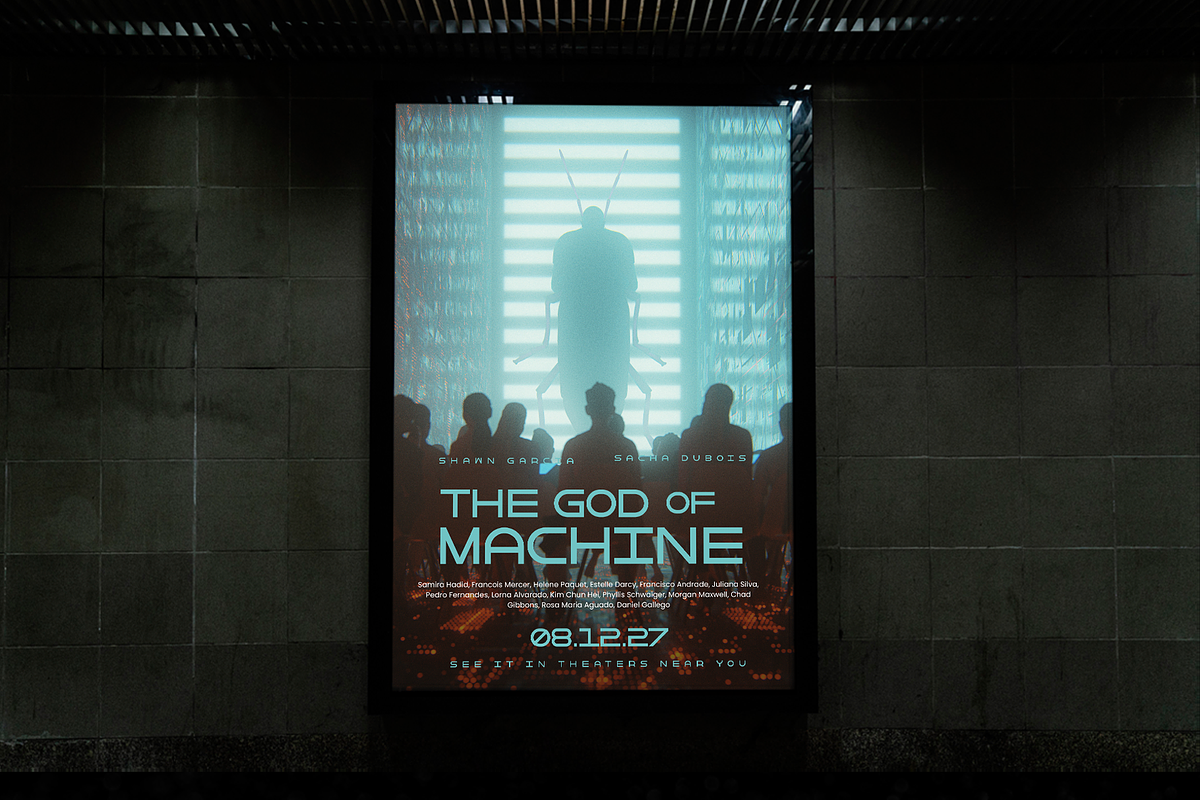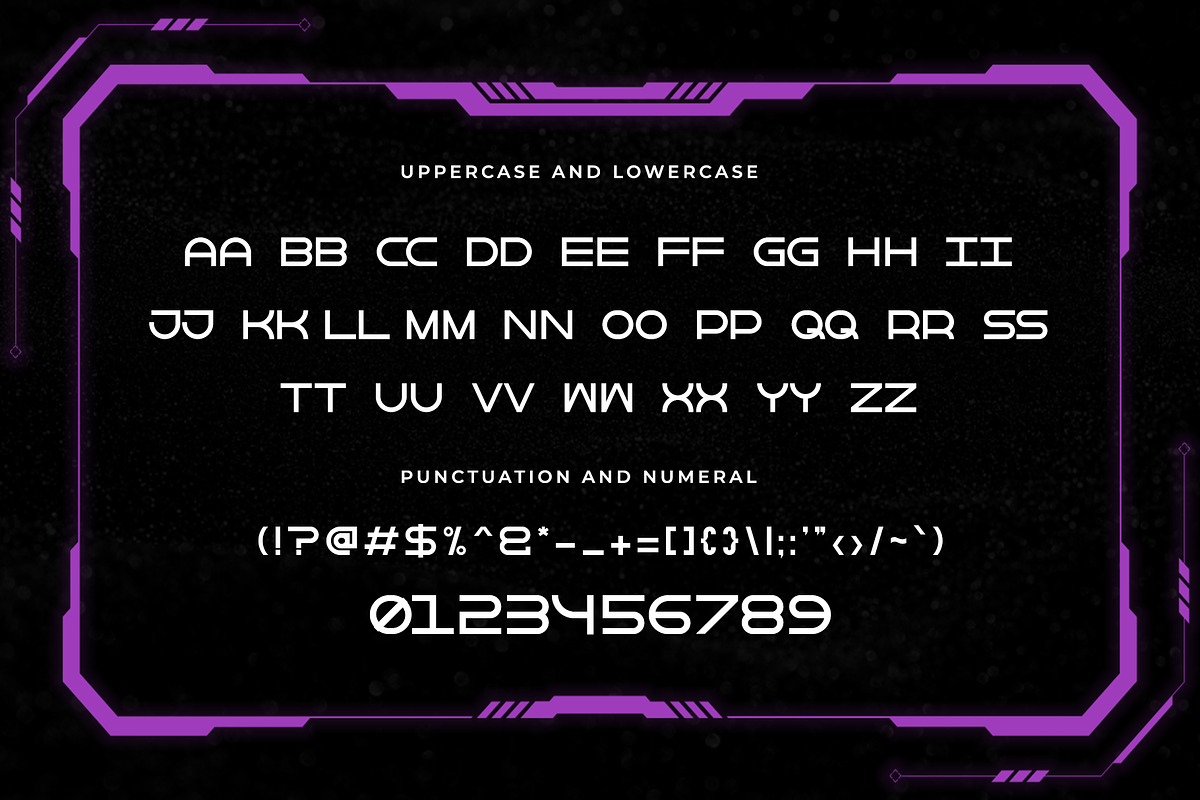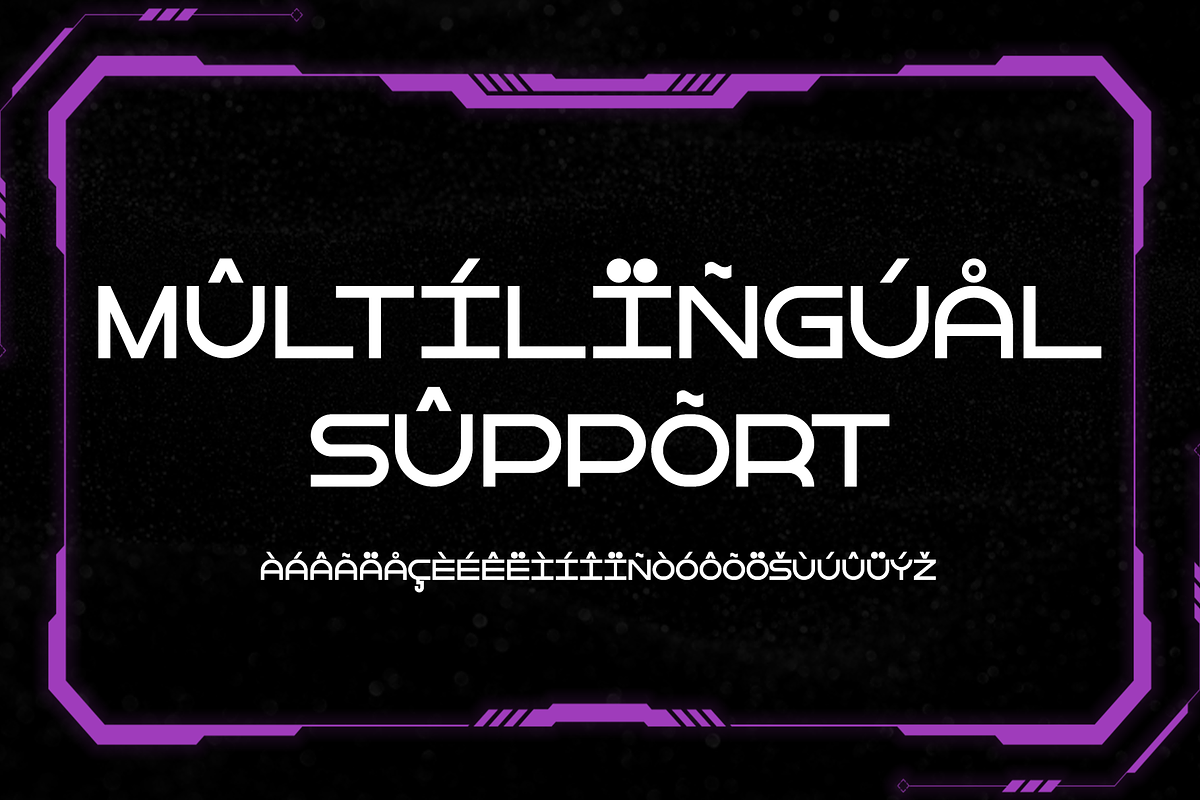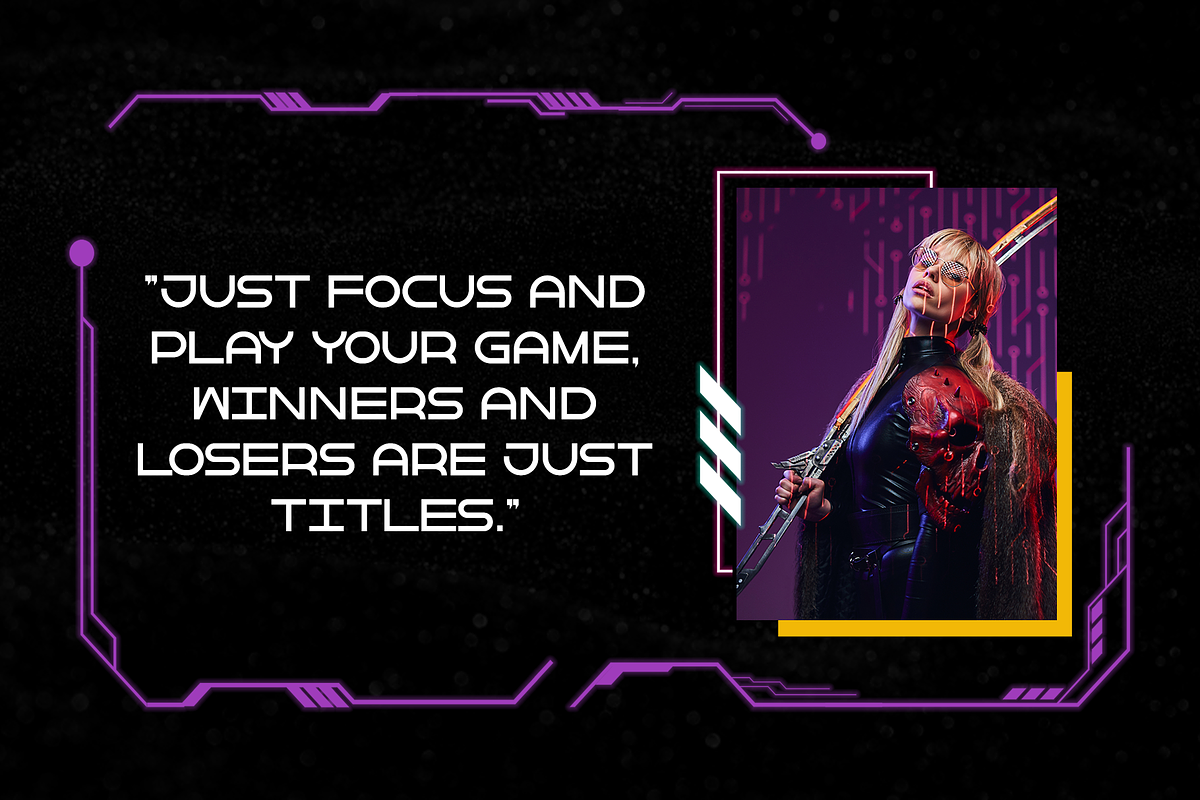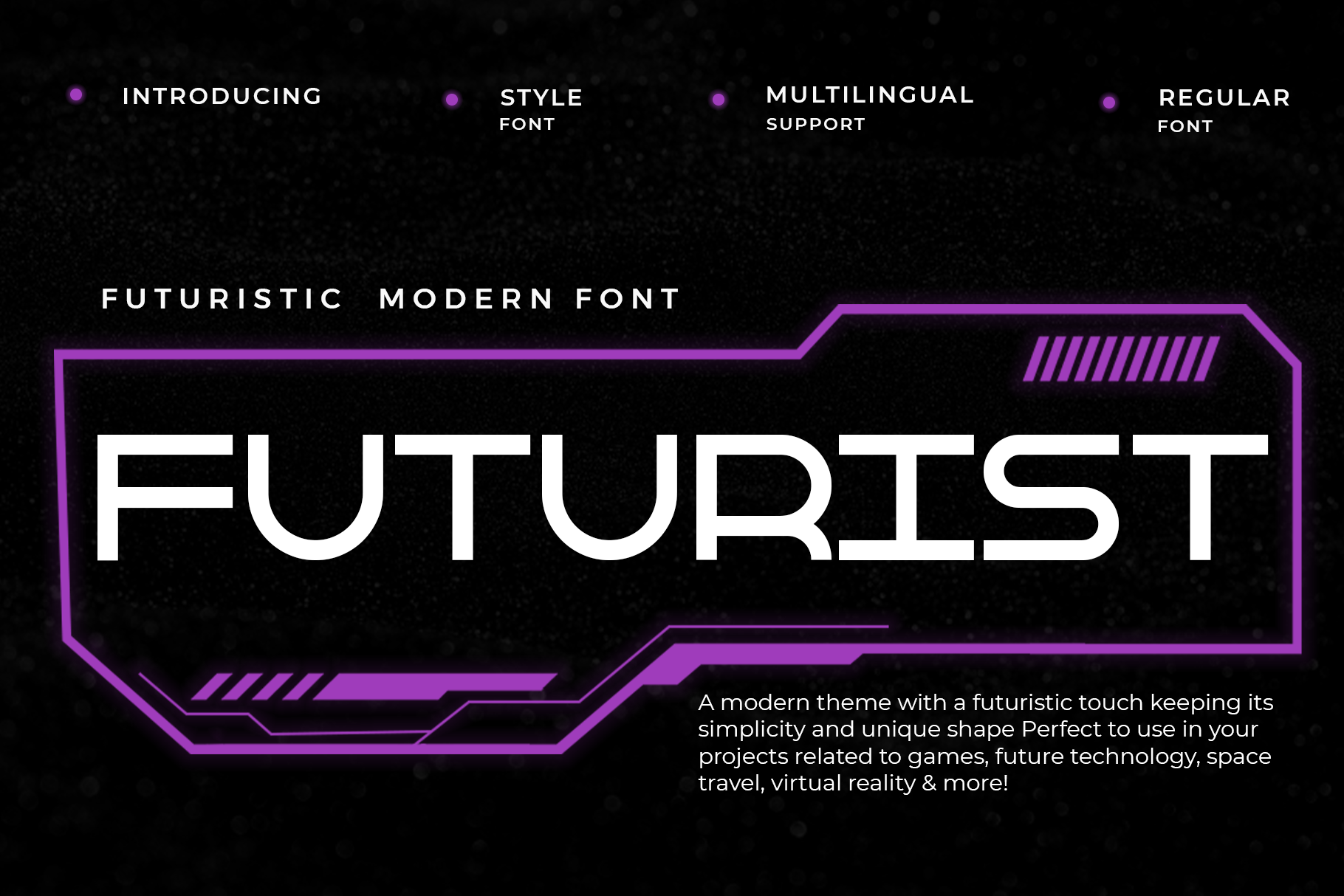
Futurist - Futuristic Modern Font
Introducing "Futurist," a futuristic modern font that embodies innovation and forward-thinking design. Perfect for graphic designers, tech enthusiasts, and creatives seeking to infuse their projects with a cutting-edge aesthetic, Futurist offers a sleek and dynamic typeface that captures the essence of future possibilities.
Ideal for technology branding, sci-fi novels, futuristic posters, digital interfaces, and forward-looking designs, Futurist’s clean and geometric characters provide a futuristic visual appeal. Each letter is meticulously crafted to convey modernity and clarity, making your designs both progressive and impactful.
The "Futurist" font includes a complete set of uppercase and lowercase letters, numbers, punctuation marks, and special characters. This comprehensive set ensures seamless integration into various design projects, from innovative logos to immersive digital experiences.
Step into the future with Futurist, the futuristic modern font that transforms your designs with tomorrow’s typography, today.